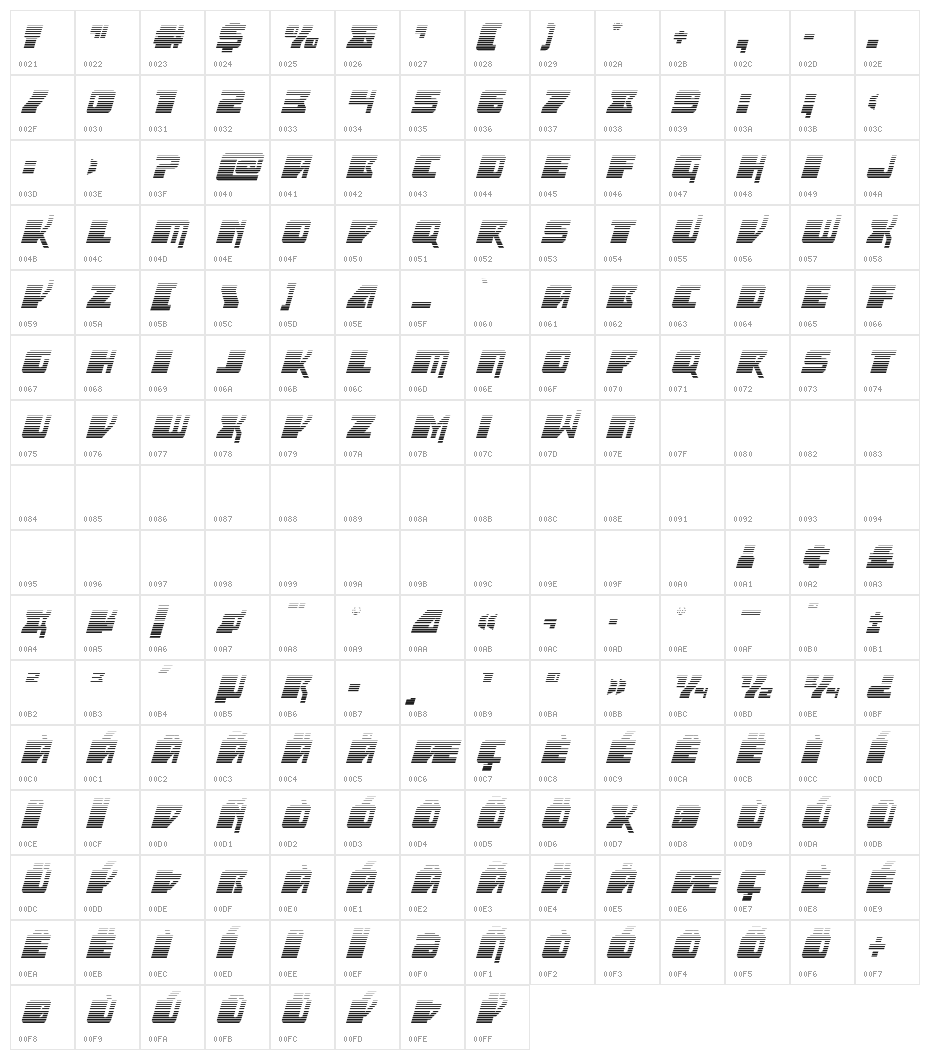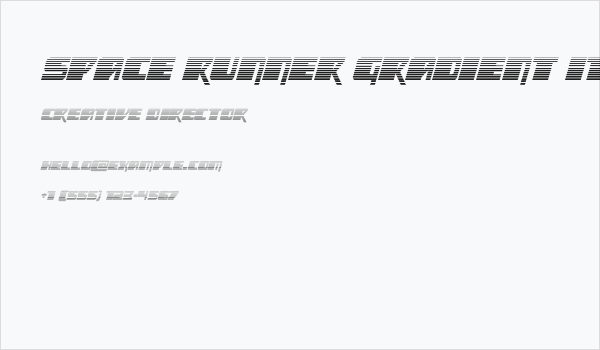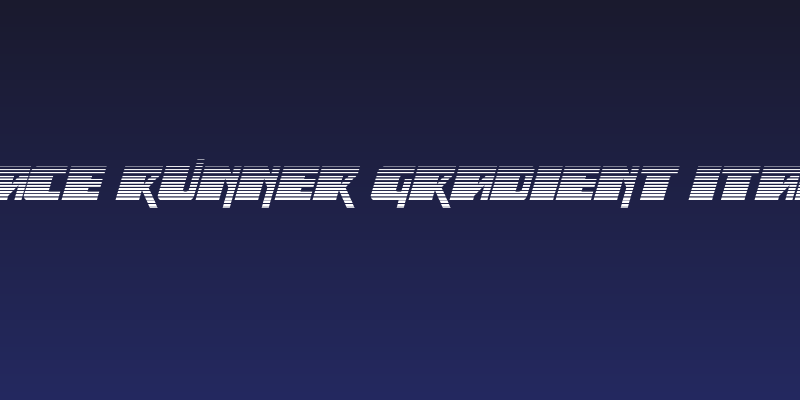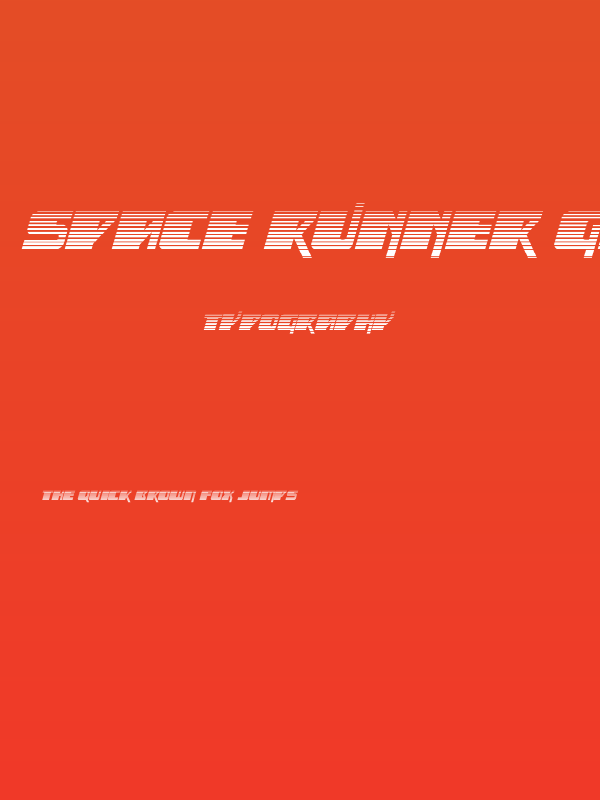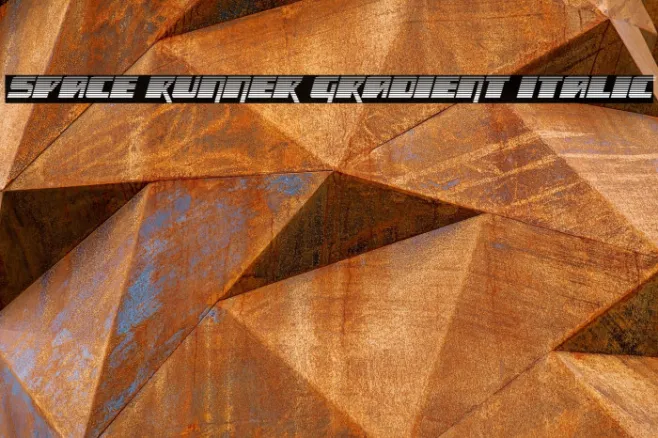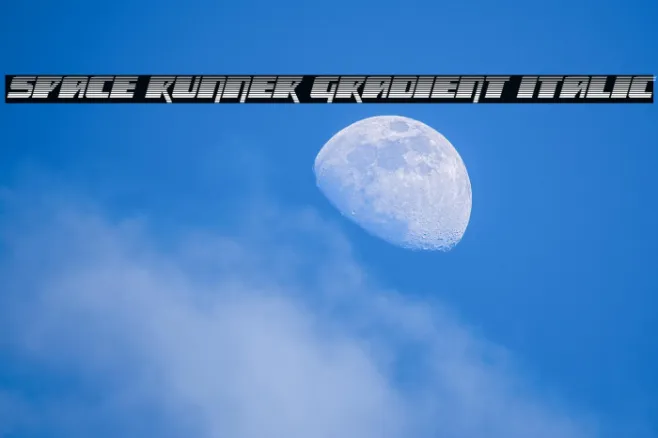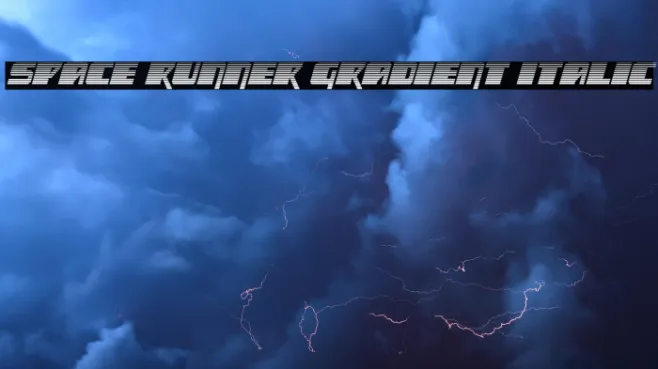
Space Runner Gradient Italic Font
Space Runner Gradient Italic Description
This font features a futuristic and dynamic design, characterized by its italicized and gradient-striped appearance. Each character is composed of horizontal lines that create a sense of motion and speed, reminiscent of digital or sci-fi aesthetics. The bold and angular shapes give it a strong presence, making it suitable for attention-grabbing designs. The font's unique style is both modern and edgy, perfect for projects that require a high-tech or avant-garde look.
| Proposed Projects | Ideal for sci-fi movie posters, tech company branding, video game titles, and futuristic event flyers. |